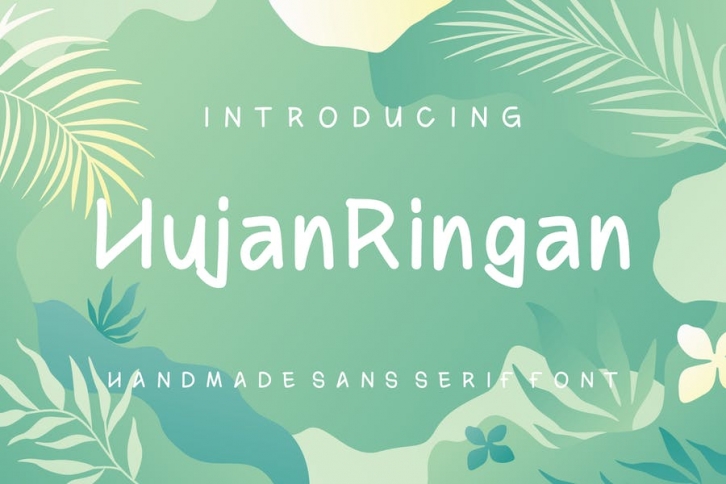
HujanRingan is a regular handcrafted sans serif font we made when it was drizzling. But it may look more distinctive, because of its imperfections. Soft strokes, imperfect shapes, give this typeface its taste.